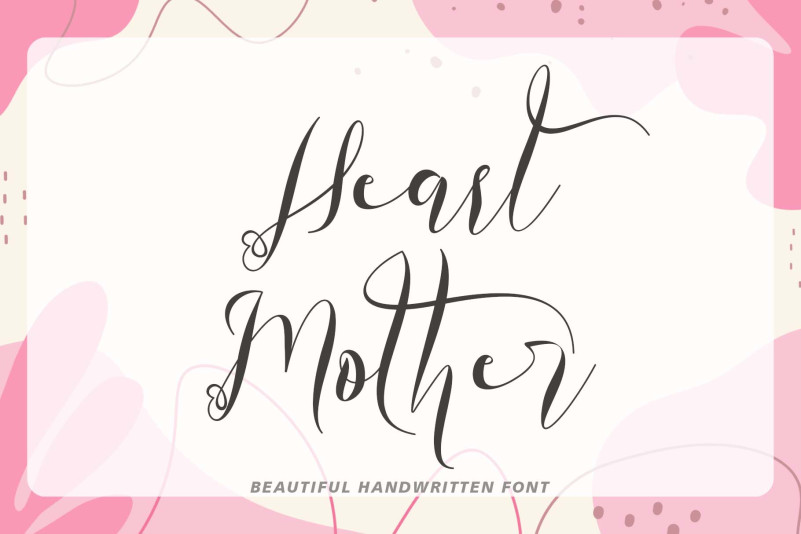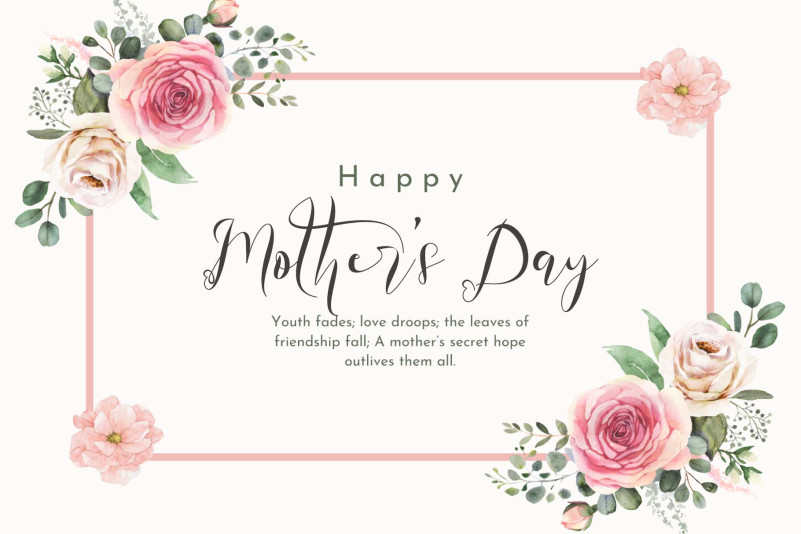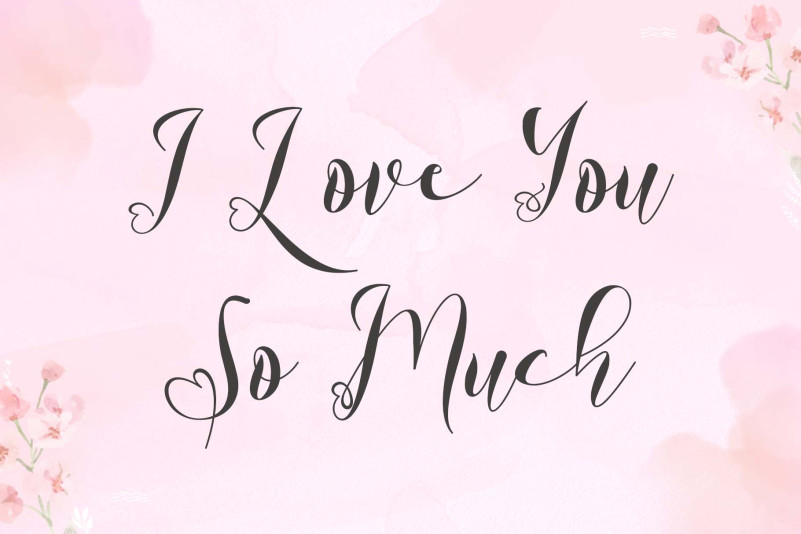
Heart Mother Font
Heart Mother Font is a romantic script font that is perfect for adding a touch of elegance to any project. Its beautiful cursive letters flow gracefully, and its delicate curves and loops give it a feminine charm. Whether used for wedding invitations, love letters, or other romantic messages, this font is sure to impress.